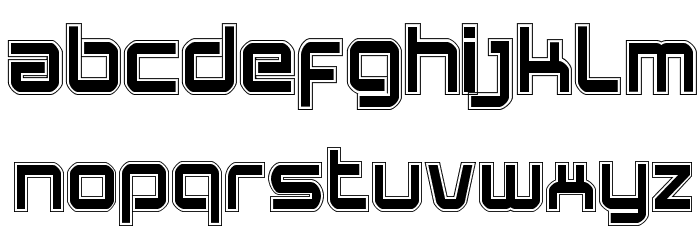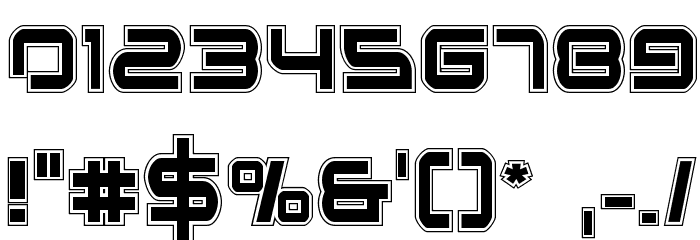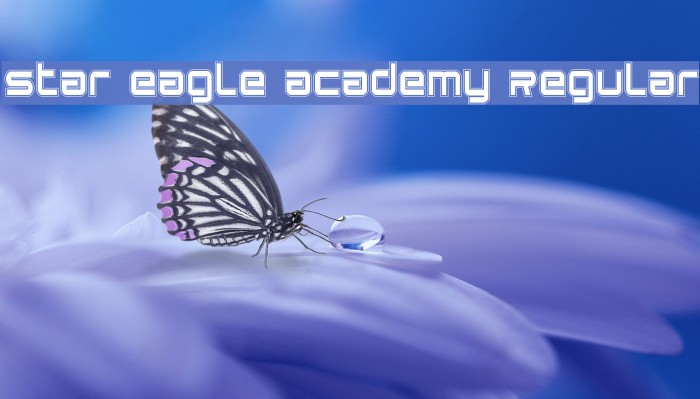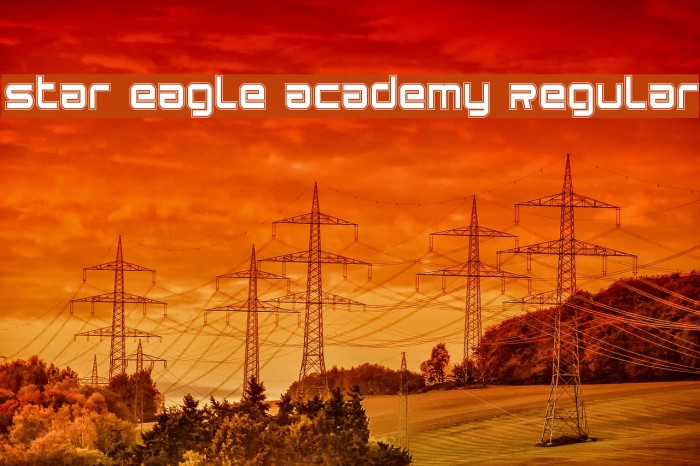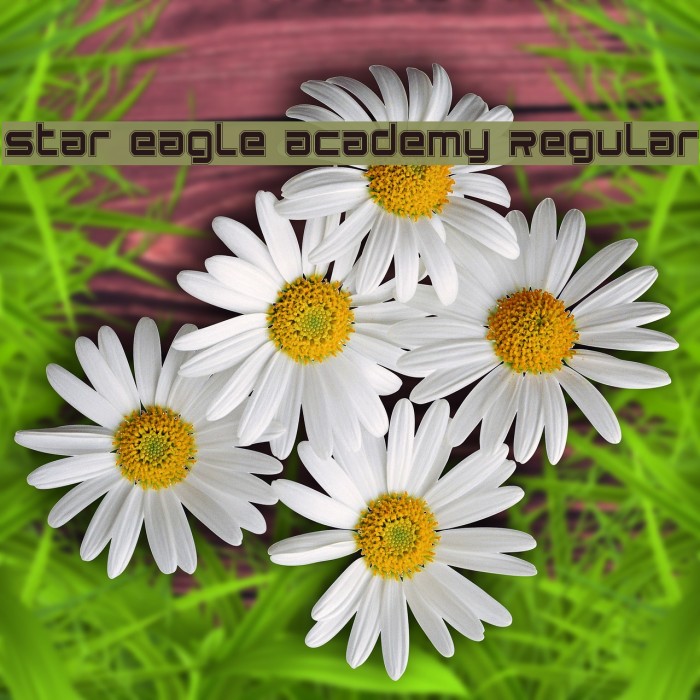
Star Eagle Academy Regular Font
This font features a bold, futuristic design with a strong geometric structure. Each character is outlined with a thick border, giving it a three-dimensional effect. The letters are uniformly styled with sharp angles and straight lines, creating a sense of precision and modernity. The uppercase and lowercase letters maintain a consistent style, while the numbers and special characters complement the overall aesthetic. This font is ideal for projects that require a bold and impactful visual presence.
A bold, futuristic font with geometric outlines and a three-dimensional effect.
- Proposed Projects: Ideal for sci-fi themed designs, video game titles, posters, and branding that requires a modern and bold look.